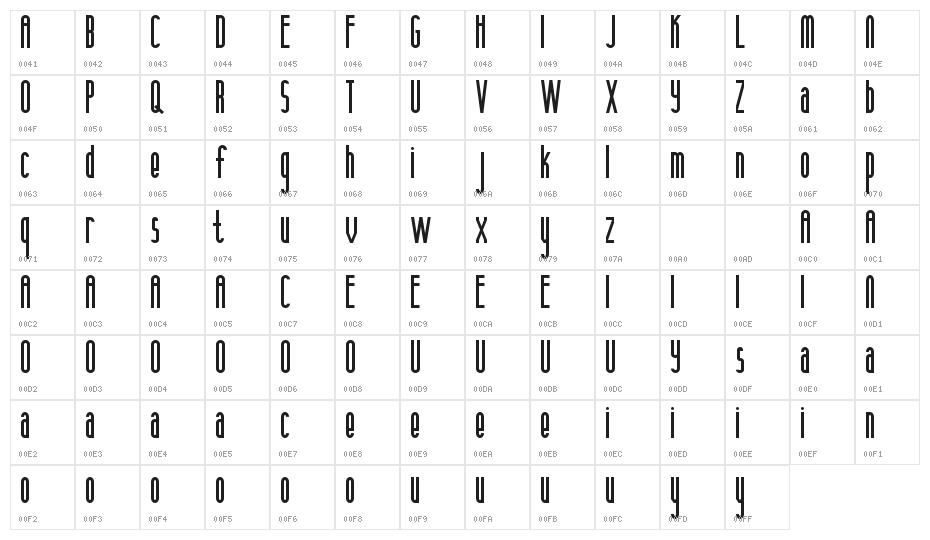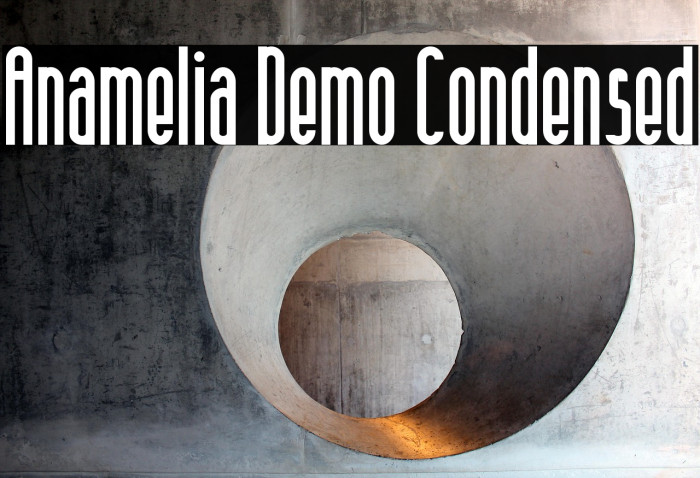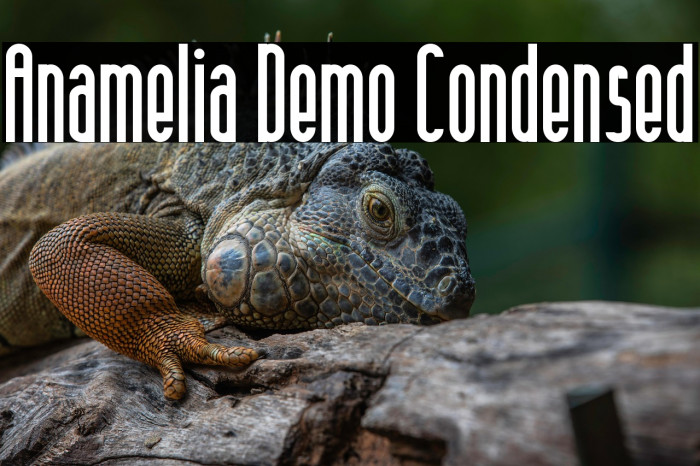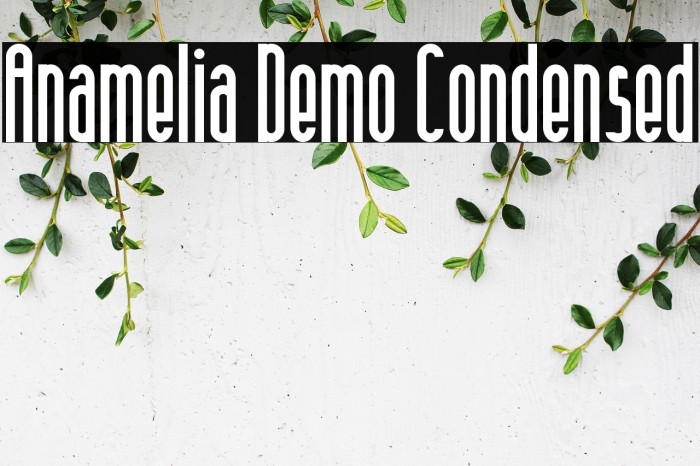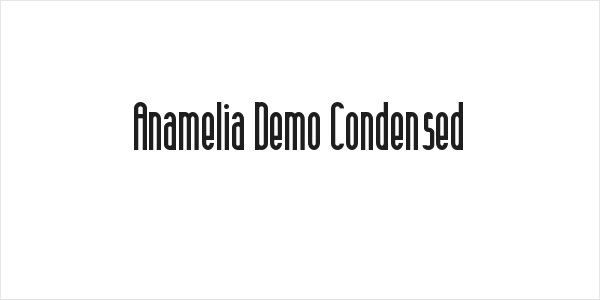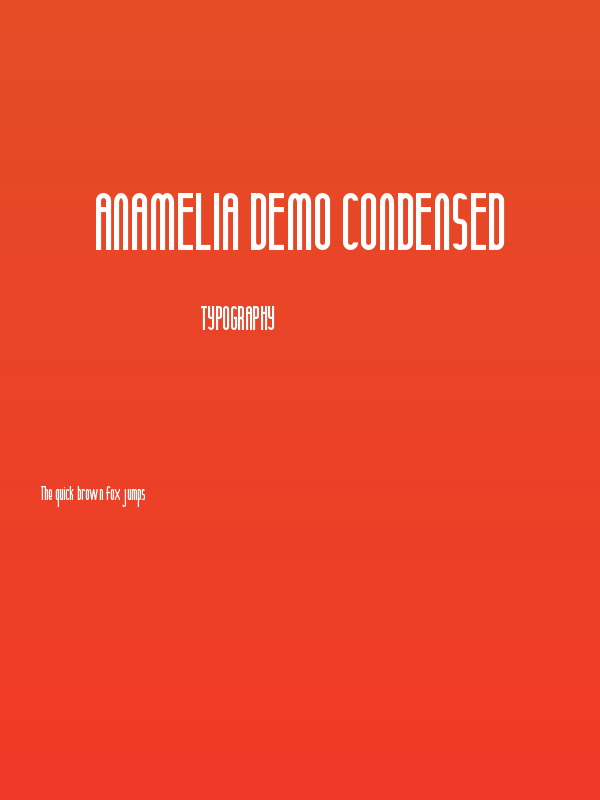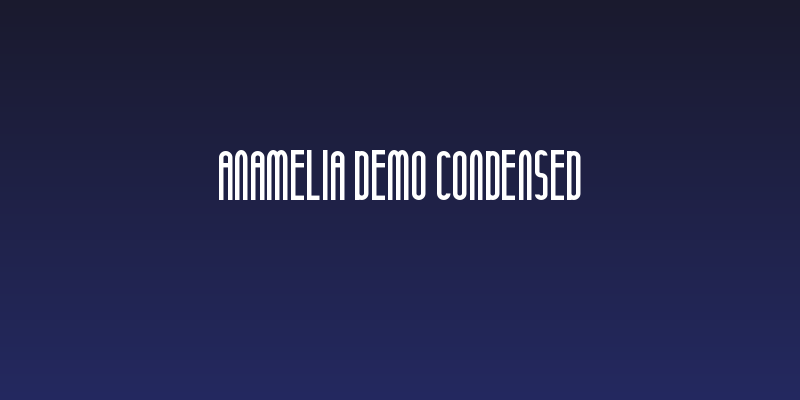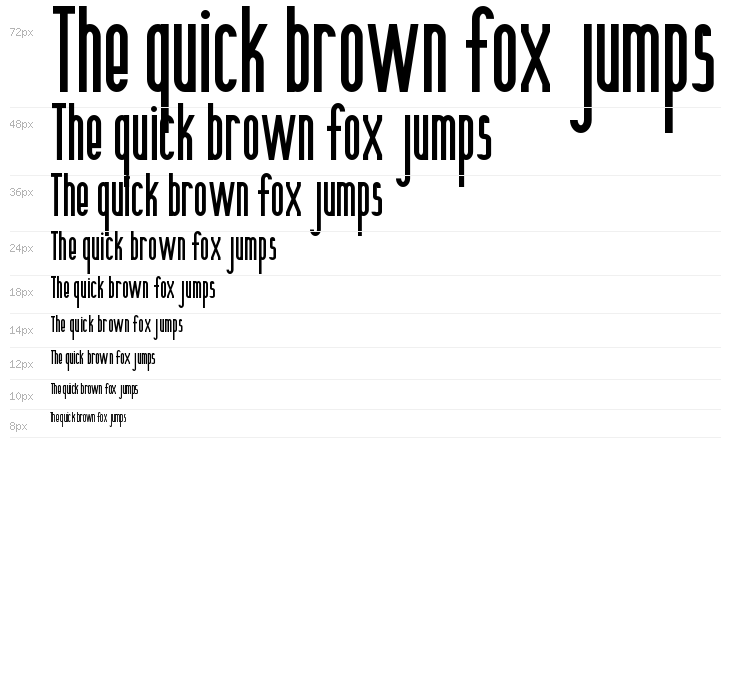
Anamelia Demo Condensed Font
Anamelia Demo Condensed Description
This typeface features a tall, narrow design with a distinctly modern and sleek appearance. The characters are elongated, giving them a condensed look that is both stylish and efficient in space usage. The uniform stroke width across all characters provides a clean and consistent aesthetic, making it suitable for contemporary design projects. The uppercase and lowercase letters maintain a cohesive style, with subtle variations that add character without compromising readability. The font's vertical emphasis and minimalistic design make it ideal for headlines and titles where space is limited but impact is desired.
| Proposed Projects | Ideal for magazine headlines, posters, branding, and any project requiring a modern, space-efficient typeface. |